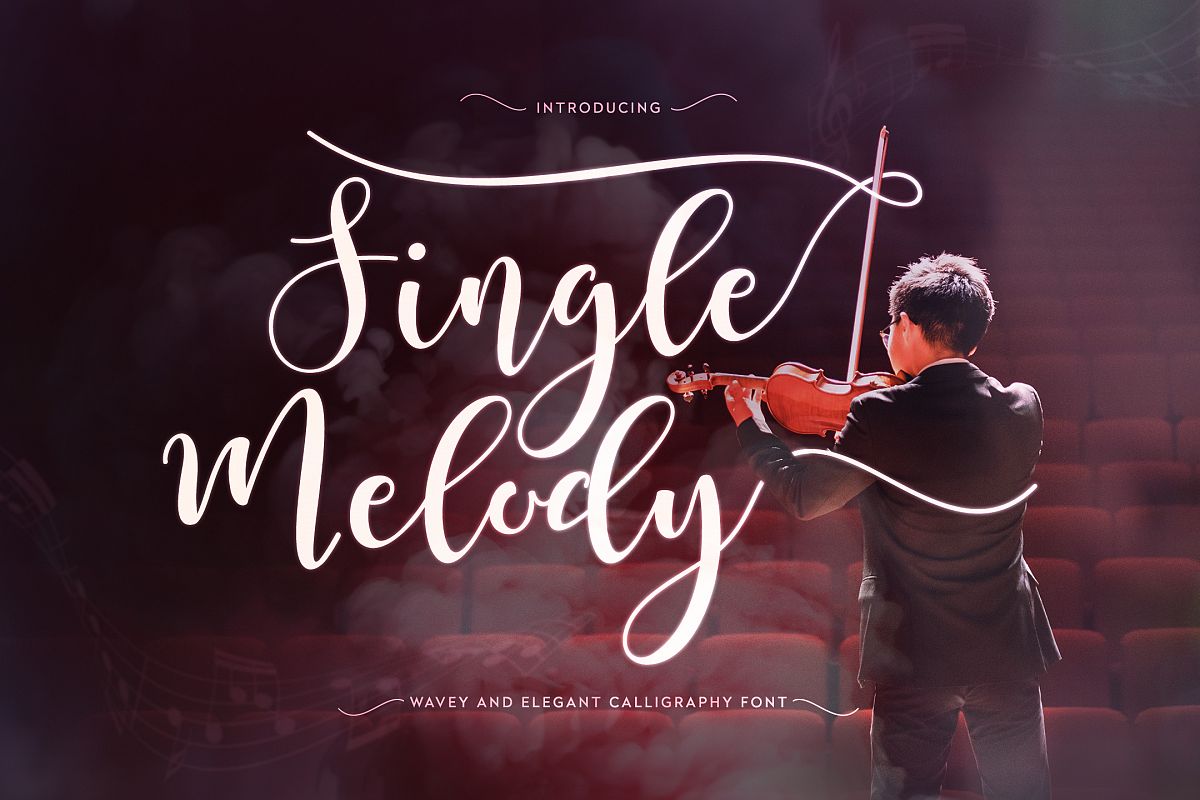
Single Melody brings script together with a chunky look and
feel. It's smooth swirls and swashes adds a variant to the font which makes it
perfect for any occasion. This amazing script font is a visual representation
of a sweet melody. Packed with lots and lots of extra glyphs to keep your projects looking unique each time.